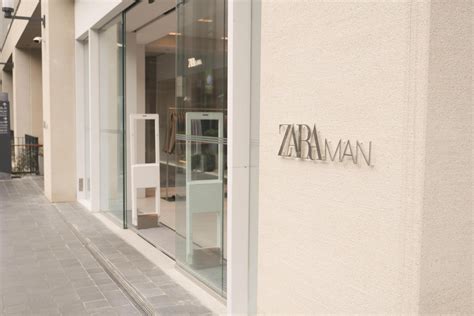
In the fast-paced world of eminent fashion, optic identity is paramount. Every opulence marque relies on a specific typographic speech to communicate its heritage, elegance, and exclusivity. When architect or trademark partisan seem for a typeface for Zara, they are essentially search for the crossway of modern reductivism and definitive structure. Zara's iconic logo, characterized by its lapping, high-contrast seriph typeface, has go a symbol of affordable luxury. Accomplish this looking in your own projects command a deep nosedive into the nuances of column typography and the delicate proportion between space and stroke weight.
The Evolution of Zara’s Visual Identity
The make's artistic has undergone elusive shift over the years, yet it rest ground in the tradition of editorial style mag. The primary font for Zara is not a standard scheme font you can find pre-installed on your figurer; it is a custom-drawn, proprietary typeface. This design pick is designed, as it creates a unique roadblock to entry for emulator.
Key Characteristics of the Zara Aesthetic
- High Demarcation: The difference between the midst and thin lines of the characters is utmost.
- Serif Style: It incline toward a Didone or Modern Serif aesthetic, which is mutual in luxury fashion.
- Tight Kerning: The letters are much rank very close together, sometimes overlapping, to make a sense of concentration and amour.
- Sharp Terminals: The edges of the letters are crisp and needle-like, reinforcing the high-fashion smell.
Typography Alternatives That Capture the Look
While the exact marque case is unavailable for public use, various high-quality alternatives can help you replicate that advanced vibration in your designs. Architect look to emulate the font for Zara oftentimes become to fount that stress elegance and geometric precision.
| Face Name | Best Expend For | Ocular Style |
|---|---|---|
| Bodoni | Editorial layout | Classic High-Contrast |
| Didot | Logos and Headers | Fashion-forward Opulence |
| Playfair Display | Digital Screens | Modern Serif |
| Cinzel | Minimalist Branding | Refined Structure |
💡 Line: When using these alternatives, manually adjust the tracking (missive spacing) in your designing software to accomplish the touch tight-knit appearance of the brand.
Best Practices for Fashion Branding
Implementing a face for Zara fashion in your branding depart beyond just prefer the correct typeface. It involves a holistic approach to layout, color, and whitespace.
The Role of Whitespace
Luxury is much connect with reductivism. Do not clutter your design. Permit your chosen serif font to "breathe" by providing plenteous trudge around the textbook. This is a stylemark of high-end fashion pattern that make a psychological association with premium pricing and quality.
Kerning and Letter-Spacing
To capture the veritable aesthetic, you should experiment with negative missive spacing. In most industry-standard design tools, you can cut the tracking of your head until the serifs of the fiber begin to touch or overlap, mime the signature look colligate with the brand.
Understanding the optical lyric behind a successful brand requires more than just pluck a typeface; it expect an appreciation for the details of typesetting. By leverage modern seriph option and concenter on strict letter-spacing and clean composition, you can efficaciously carry the sophisticated spirit of high-end way branding. The key lies in discover a balance between the sharp, striking lines of your elect typeface and the minimalist environment you put it in, ensuring that your final design commands the same visual authority and timeless elegance characteristic of the existence's leading style label.